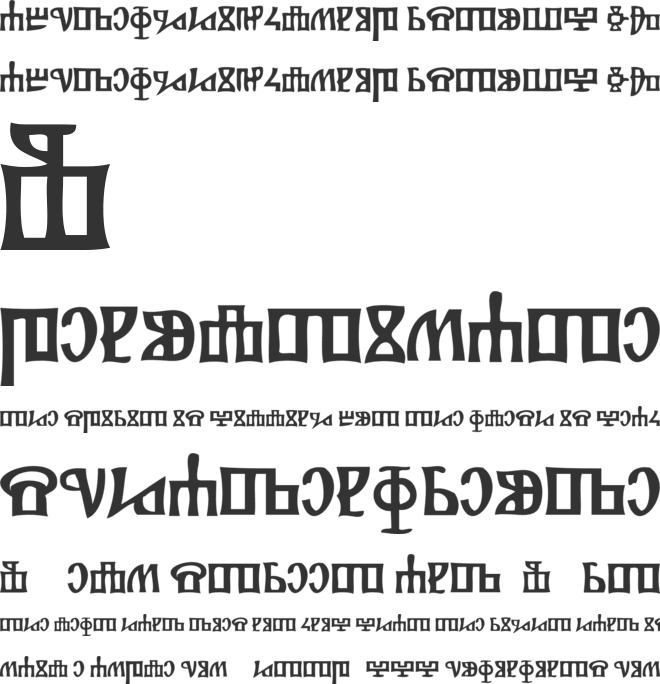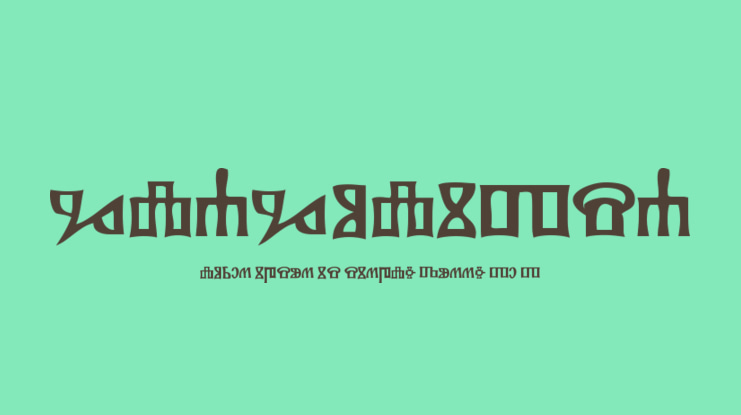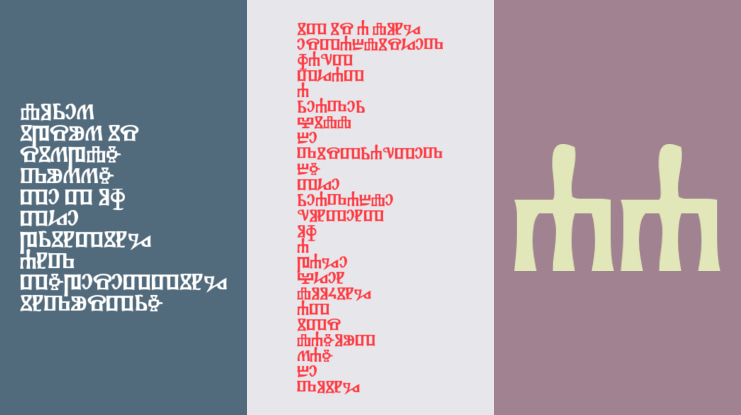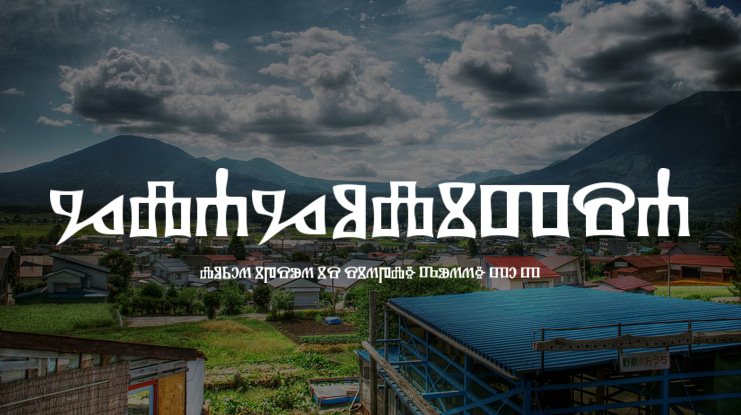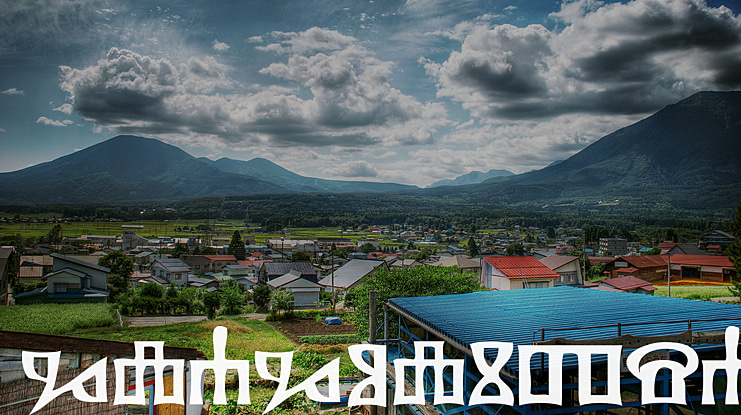
Glagolitsa Font
The Glagolitic alphabet, also known as Glagolitsa, is the oldest known Slavic alphabet. Although popularly attributed to Saints Cyril and Methodius and the introduction of Christianity, the origin of the Glagolitic alphabet is obscure.
The medieval text "Pannonian Life of Constantine" records that the Slavs were already literate at the time of Cyril's mission: "during a mission to the Crimea in 860, he was shown a Gospel and Psalter written in Rus letters. St Cyril is reported not to have seen these before, but to have learnt to read them surprisingly quickly." (Cubberley, 1996)